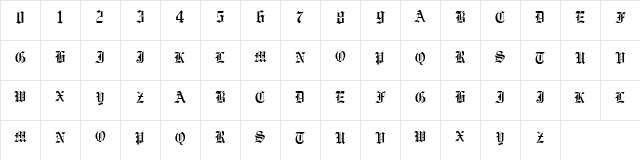
Vorname Regular Free Font
Vorname Regular
Foundry: Paulo W
Designer: Paulo W
Design Context for Vorname
Vorname is a composed and adaptable typeface that performs quietly and consistently across a wide range of design contexts.